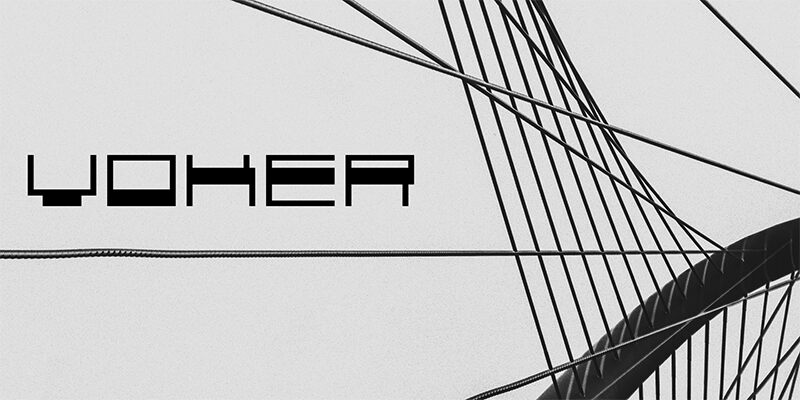
Voker by Carlos Matteoli of Q-BO is a free futuristic display font with broad, sharply engineered letters. Its squared curves and long horizontal strokes create a low, machine-cut profile. The forms are stark and highly geometric.
Circuit diagrams, interface panels, and hard-edged product photography share the font's precise linear construction, making it suited to technology branding, game graphics, and electronic music posters. In packaging, those extended shapes can become part of a larger pattern of tracks, frames, and cropped technical imagery.